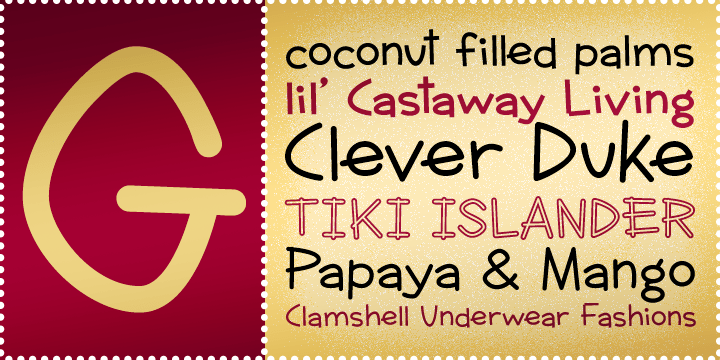
HomeFont BrosRetro (1936-1965)Clever Duke BTN Retro (1936-1965)Wacky Clever Duke BTN FacebookXPinterestWhatsApp 1 of 1 About Clever Duke BTN Clever Duke is a unique, playful display typeface that is elegant enough for invitations, but playful enough for a children\’s book.  DOWNLOAD NOW People also explored Where Farmhouse Font Font Cute Man Font Hello Farmer Font Lonemore Font Ginger Snap Autikec Font Story of Super Boys Font Hantoria Signature Font Messenger Pigeons Font 216 0 TagsClever Duke BTN Font Previous articleMotel KingNext articleDime Museum LEAVE A REPLY Cancel reply Comment: Please enter your comment! Name:* Please enter your name here Email:* You have entered an incorrect email address! Please enter your email address here Website: Save my name, email, and website in this browser for the next time I comment. Personal Use Free Talking on Personal Use Free Read more about this font Short Message Personal Use Free Read more about this font 08 Underground Personal Use Free Read more about this font Adriator Personal Use Free Read more about this font BLOG 5 Fonts That Will Dominate Design Trends in 2026 5 Fonts for 2026 That Will Dominate Design Trends Typography plays a critical role in visual communication, and as we look ahead to 2026, it’s... To increase your work productivity, choose the most readable fonts. Transform Your Website: Elevate Your Typography with 7 Best Web Font Generators Free Fonts Risk: Why Free Fonts Can Be Dangerous for Designers